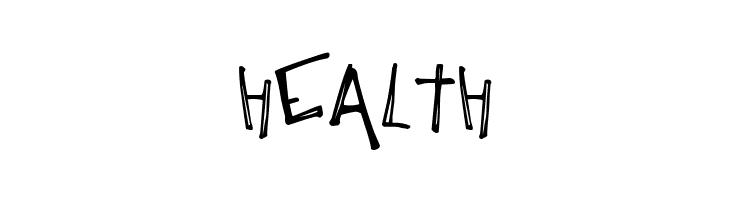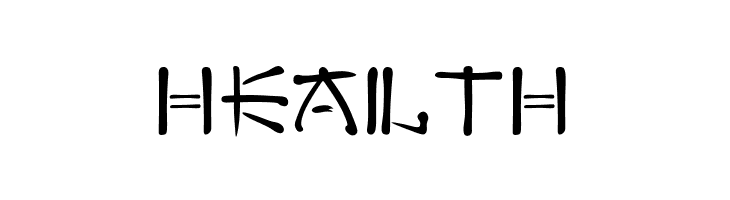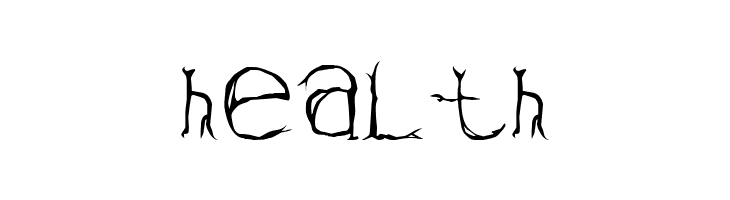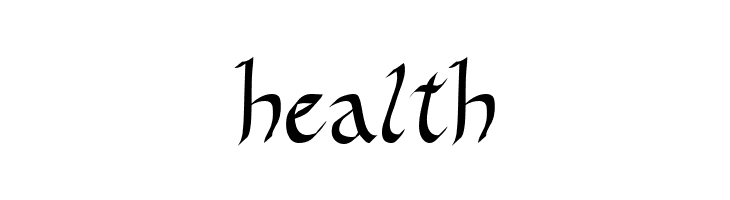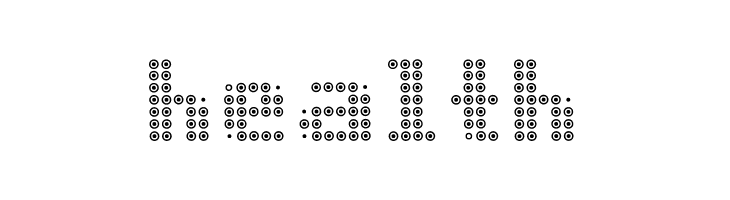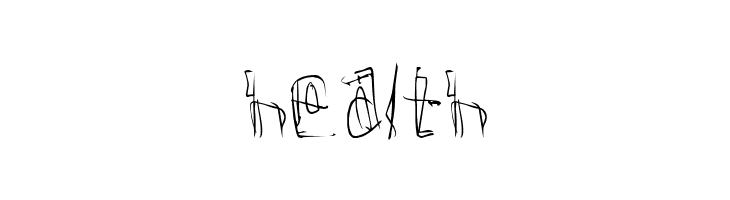
An artistic font with elongated features and a modern, elegant style.
A sketch-like, hand-drawn font with irregular lines and dynamic strokes.
A playful, quirky handwritten font with dynamic, irregular letterforms.
A brush-like, calligraphy-inspired font with dynamic strokes and an exotic aesthetic.
An edgy, thorn-like font with jagged, organic letterforms and bold, rectangular numbers.
A bold, pixelated font with a modern, digital aesthetic.
An ornate, calligraphy-inspired font with intricate detailing and a classic yet modern appeal.
A dotted, pixelated font with a modern, digital display style.